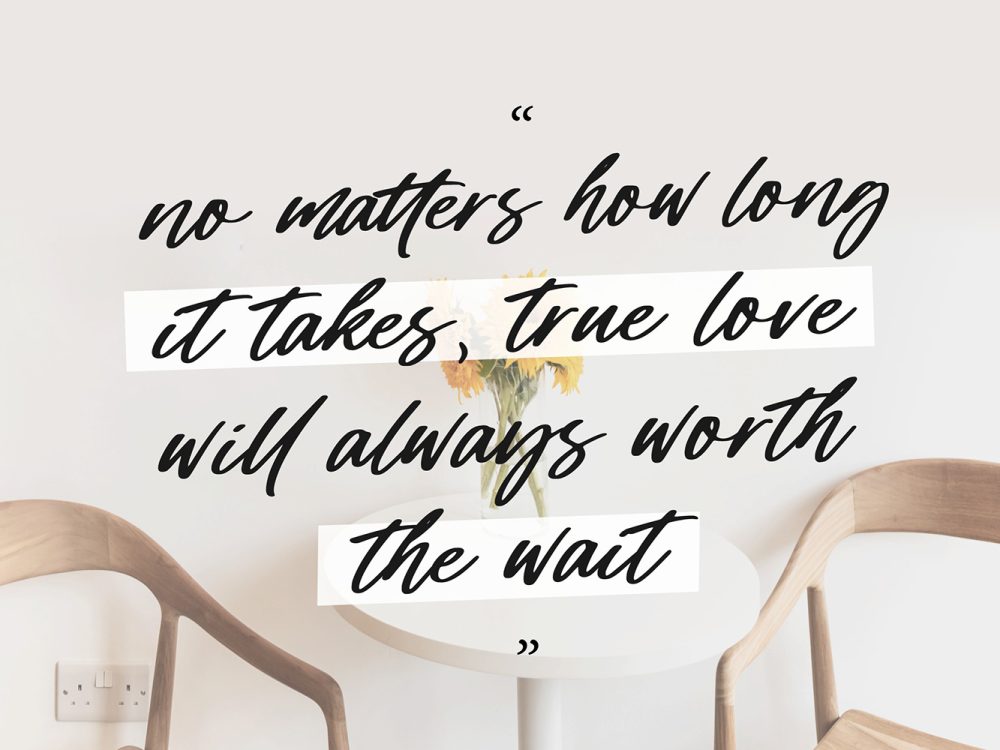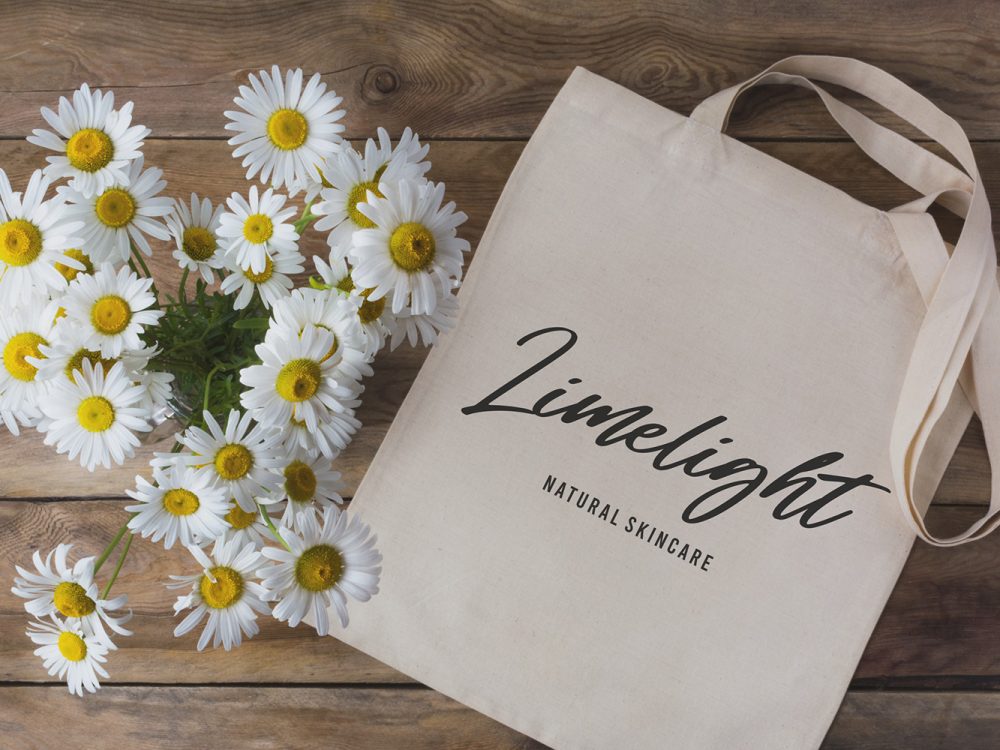
Bostonbay Free Font is an exclusive and sophisticated handwritten font, adding a touch of elegance to any design. Its beauty enhances a wide range of projects that seek a personalized style, including wedding invitations, thank you cards, wedding themes, greeting cards, logos, and more. If you like it don’t forget to check out the full version.
Author: Balpirick Studio.